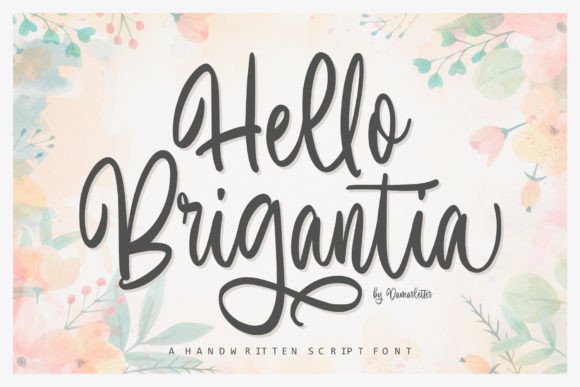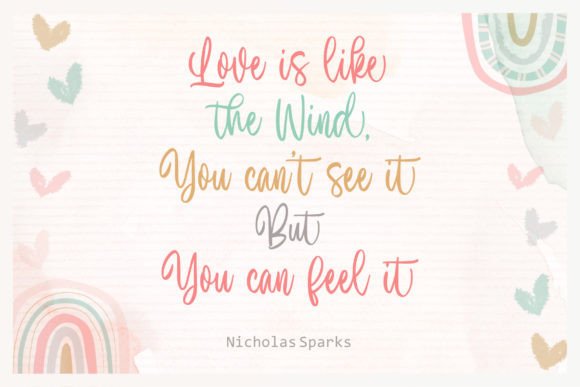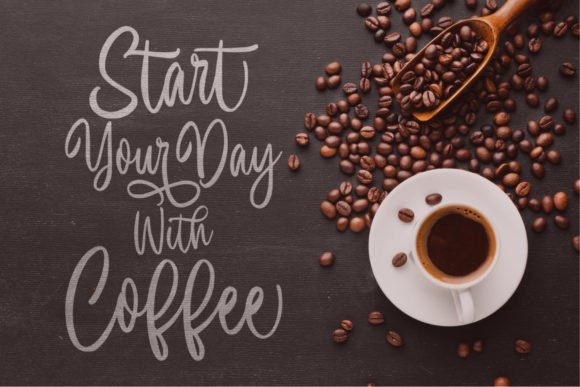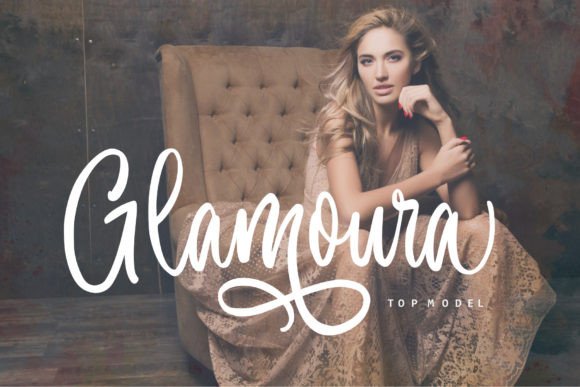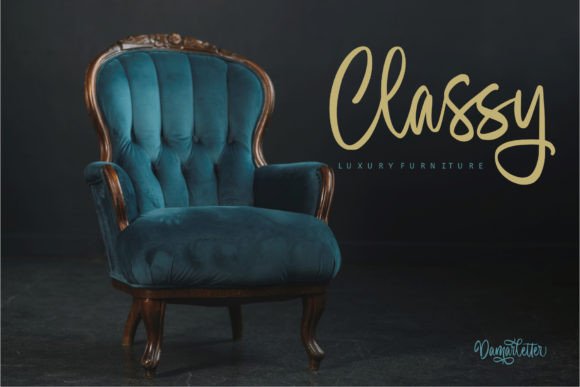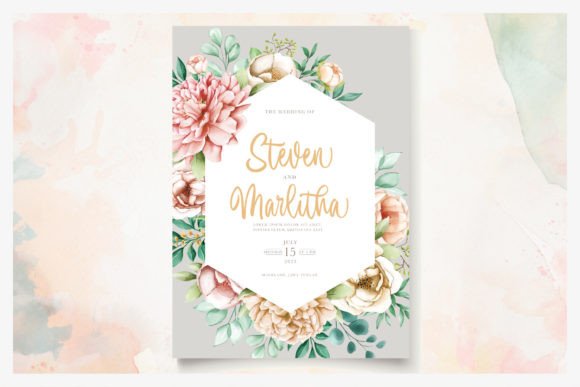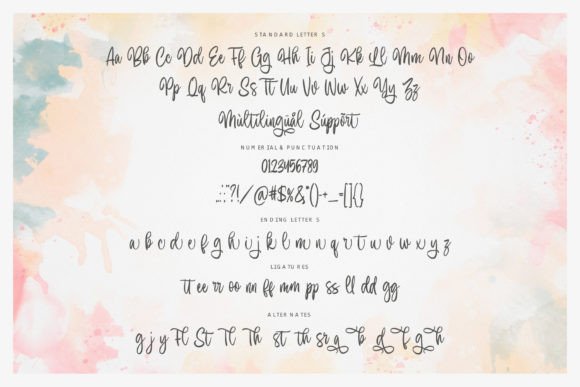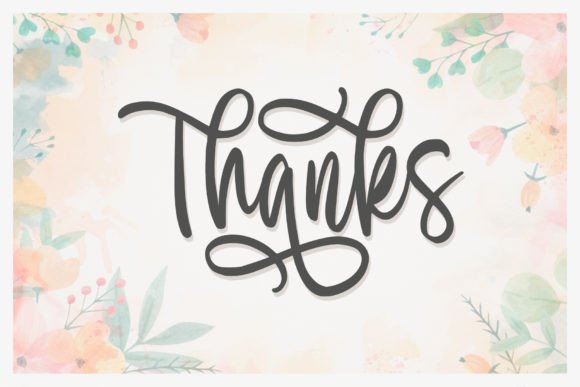
Hello Brigantia Font
About Hello Brigantia Font
**Hello Brigantia: Elevating Elegance in Typography**
In the vast expanse of fonts, “Hello Brigantia” emerges as a chic and refined script font, a true gem that adds an element of sophistication to various design projects. This script font isn’t just a set of letters; it’s a design choice that brings a touch of personalization and elegance to a multitude of applications, from wedding invitations to logos and beyond.
**1. Chic and Refined Aesthetic:**
– “Hello Brigantia” exudes a chic and refined aesthetic, making it an ideal choice for projects that demand a touch of sophistication. The script’s graceful curves and intricate details contribute to its overall elegance, elevating the visual appeal of any design.
**2. Versatility in Design:**
– Its versatile nature allows “Hello Brigantia” to enhance a wide array of designs. From wedding invitations and thank-you cards to greeting cards and logos, this font seamlessly adapts to different contexts, ensuring a consistent and personalized style across diverse projects.
**3. Personalized Touch for Special Occasions:**
– Special occasions call for personalized styles, and “Hello Brigantia” rises to the occasion. Whether gracing wedding invitations or expressing gratitude through thank-you cards, the font adds a layer of charm that transforms ordinary text into a visual expression of sentiment.
**4. Timeless Appeal for Greeting Cards:**
– Greeting cards, designed with “Hello Brigantia,” acquire a timeless and elegant appeal. The script’s refined nature imparts a sense of care and attention to detail, turning each card into a work of art that resonates with recipients.
**5. Branding with Elegance:**
– Logos crafted with “Hello Brigantia” exude a sense of elegance and sophistication. The script’s fluid lines and stylish flair contribute to a brand identity that is not just memorable but also communicates a refined aesthetic to the audience.
**6. PUA Encoding for Easy Access:**
– The font’s PUA encoding is a valuable feature, providing easy access to all glyphs and swashes. This feature enhances the user experience, allowing designers to explore and utilize the full range of stylistic elements seamlessly, thereby expanding creative possibilities.
In conclusion, “Hello Brigantia” transcends the realm of fonts; it becomes a design element that elevates projects with its chic and refined script. Whether used in personal expressions, branding endeavors, or special occasion materials, this font brings an undeniable touch of elegance. “Hello Brigantia” isn’t just a typeface; it’s a design companion that whispers sophistication in every stroke, making it a valuable asset in the toolkit of designers aiming for timeless and personalized aesthetics.